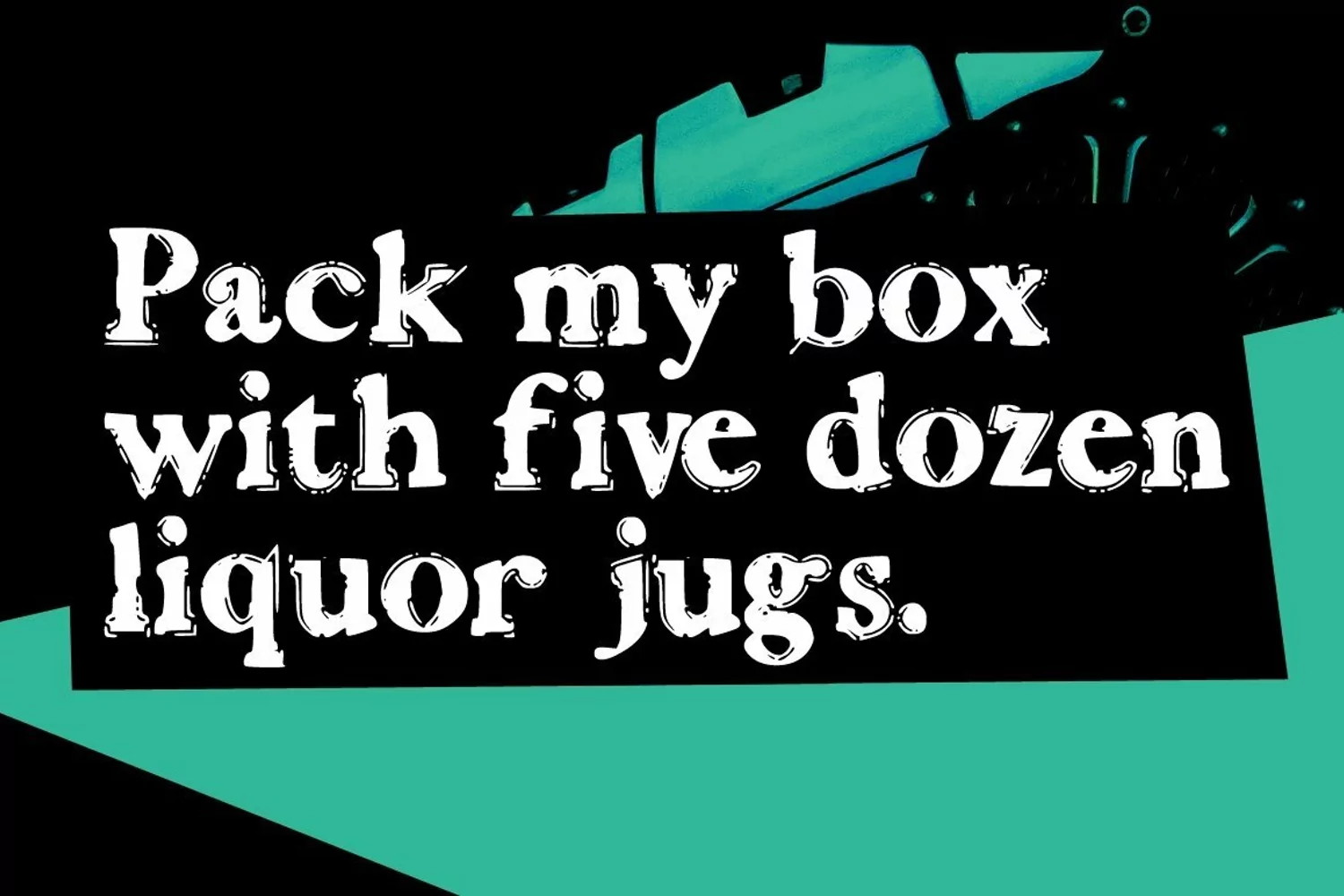
Introducing Aconitum!
Aconitum is a brand new font. Aconitum is perfectly suited to stationery, logos, t-shirt, paper, print design, website header, photo frame, flyer, music cover, poster, image slider and much more.